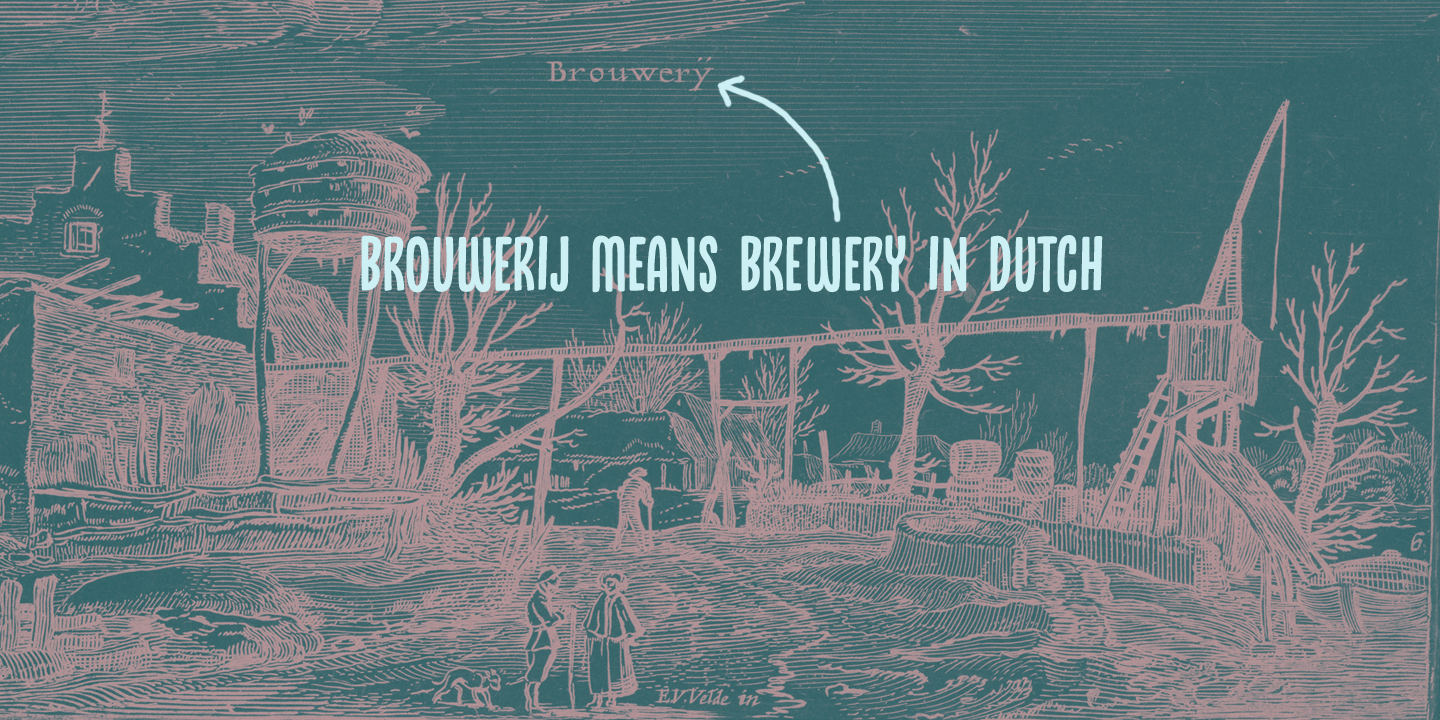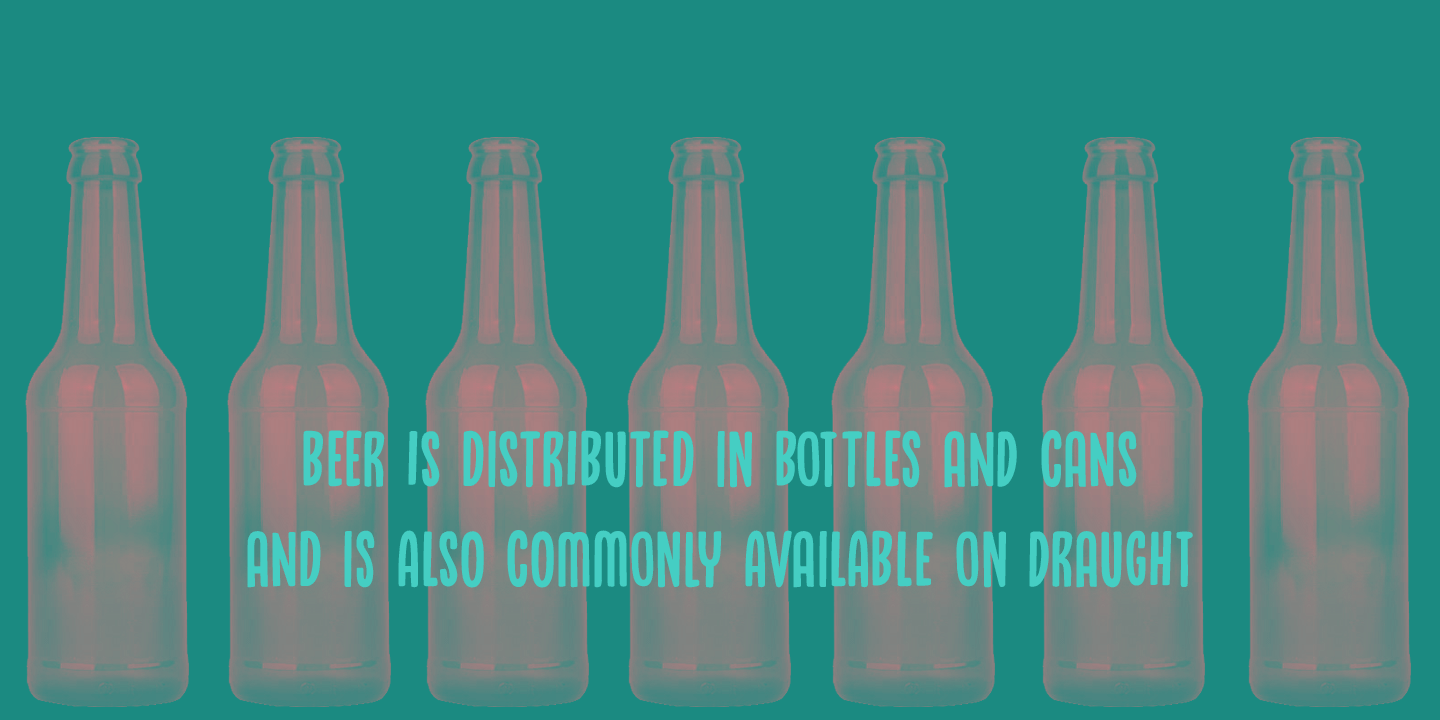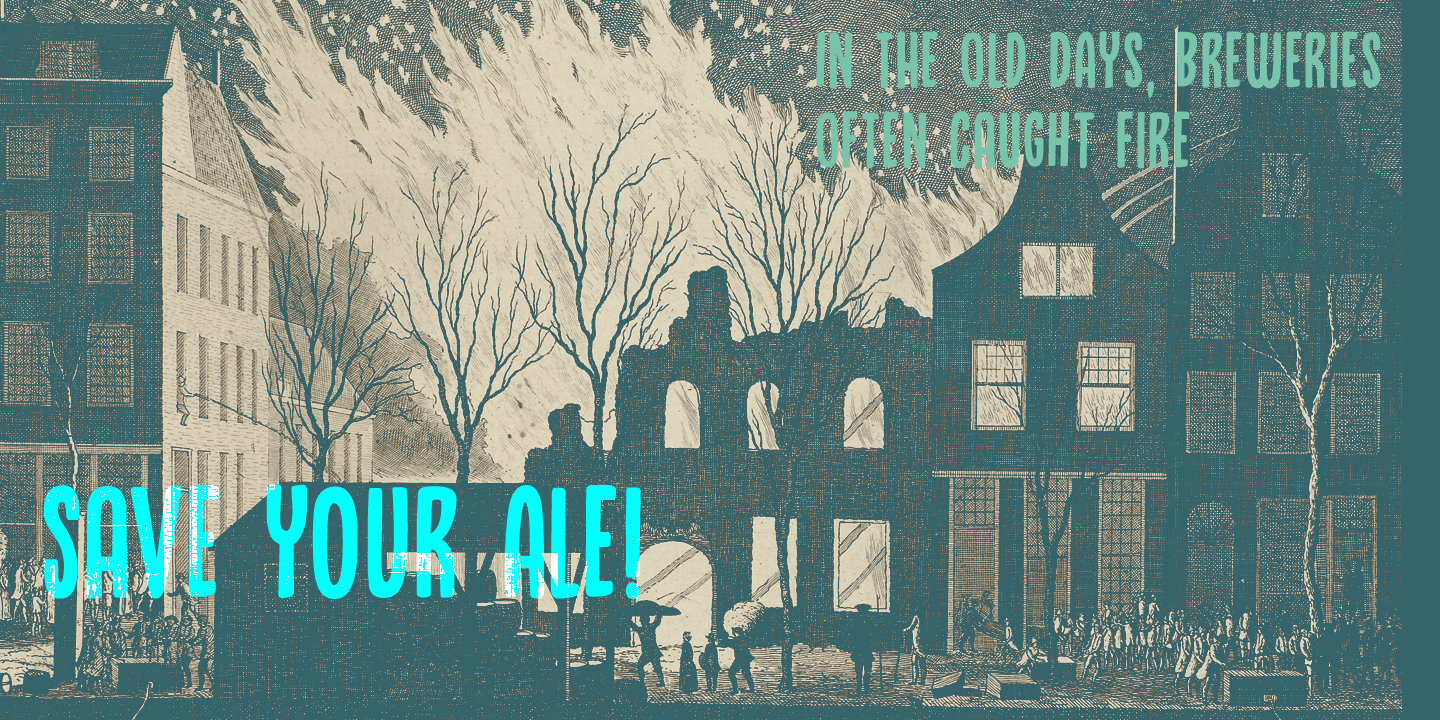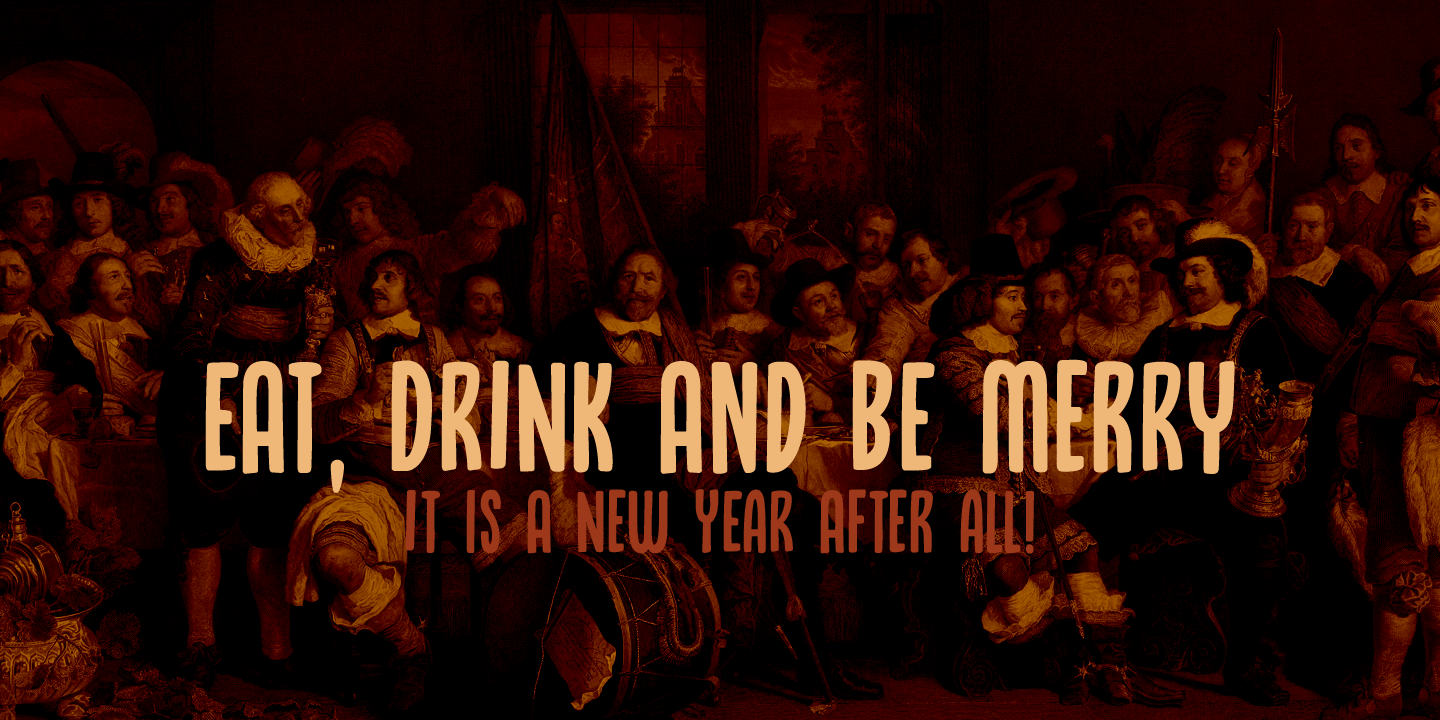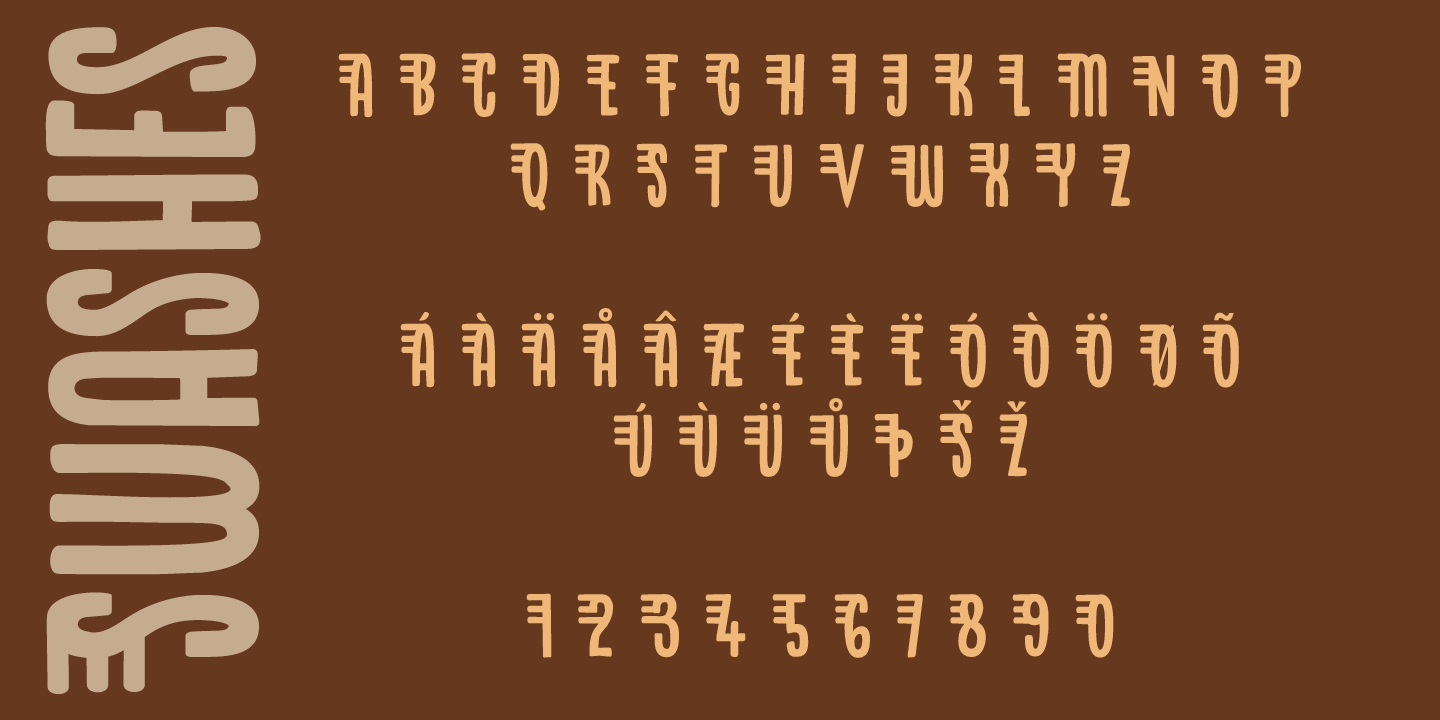
Brouwerij
Brouwerij means Brewery in Dutch. I just liked the name and it seemed to fit the font quite well. As for me, believe it or not, I?m not a beer drinker! I can't understand why people go nuts when the word beer is mentioned. Like it is something special (after all, it is the third most consumed beverage after water and tea). Like you are not a man when you don't drink beer!
Brouwerij is a pleasant all caps font that comes with interesting swashes for the upper class letters. You can (obviously) use it to promote your home made brew, but any other drink can use a bit of Brouwerij as well.